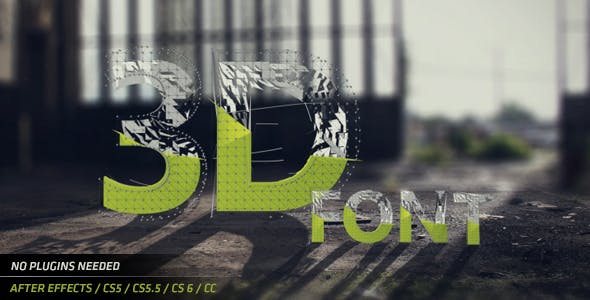
Modern 3D Typeface Kit Animated alphabet in Shattered glitch style. Great for movie Opening Titles. Futuristic looking font for any production. Hi-Tech mood that brings a lot of fresh air to your headlines. Abandoned urban post industrial backgrounds images like Underground parking or hangar are in the package. In the ZIP file you can find After Effects project file with Alphabet in motion A-Z plus numbers. All the compositions used in the preview video are included. Animated Countdown form 10 to 0 is useful not only in new years eve theme or Tv charts. Impress your clients and create unique Typo with Parallax effect. Its also great to track the letters with your footage, Tracking is always fun. Glitchy Transitions from preview presentation are also included. After Effects CS5 / CS5.5 / CS6 / CC / FULL HD Reslolution 1920×1080, Video Tutorial Included. Music from the preview is not included you can buy it here: http://audiojungle.net/item/epic-hybrid-trailer-2/6579149